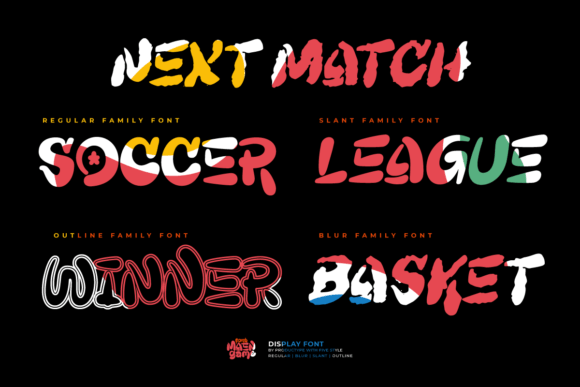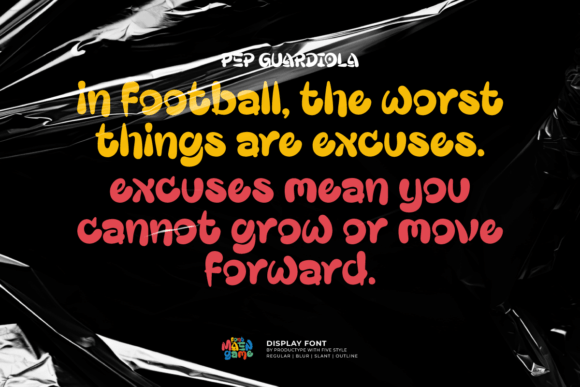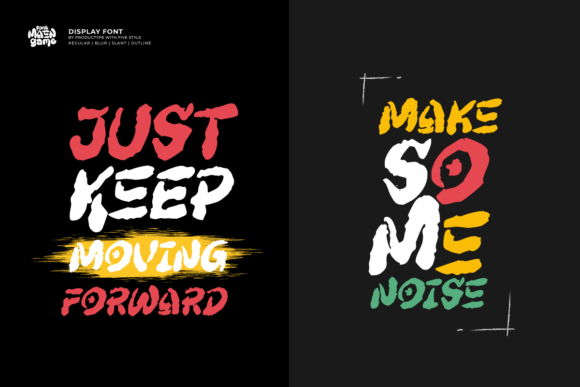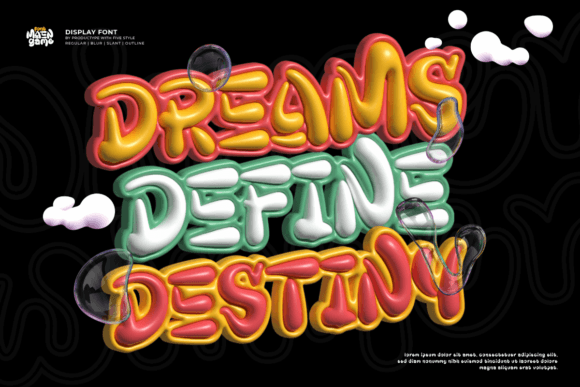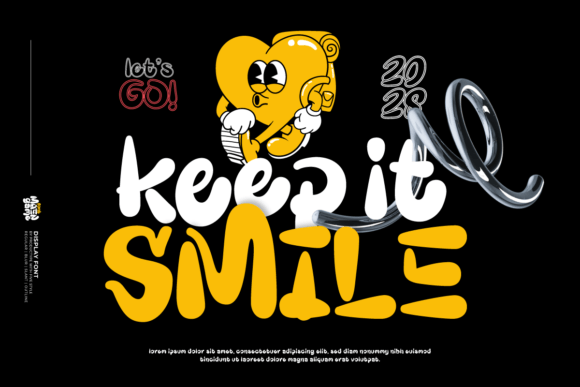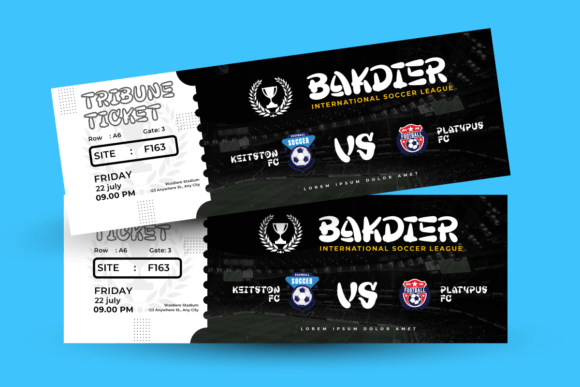
Introduction to Maengame Font
Meet Maengame Font Display, Bring Fun and Power to Your Designs.
Maengame is not just a font; itโs a gateway to a world of joy and power in your designs With eye-catching display themes and a strong game style, Maengame brings a unique touch to your projects.
Maengame Font offers exceptional quality and versatility, making it a valuable addition to your design toolkit. Whether you’re creating for personal projects or commercial use, Maengame Font delivers professional results.